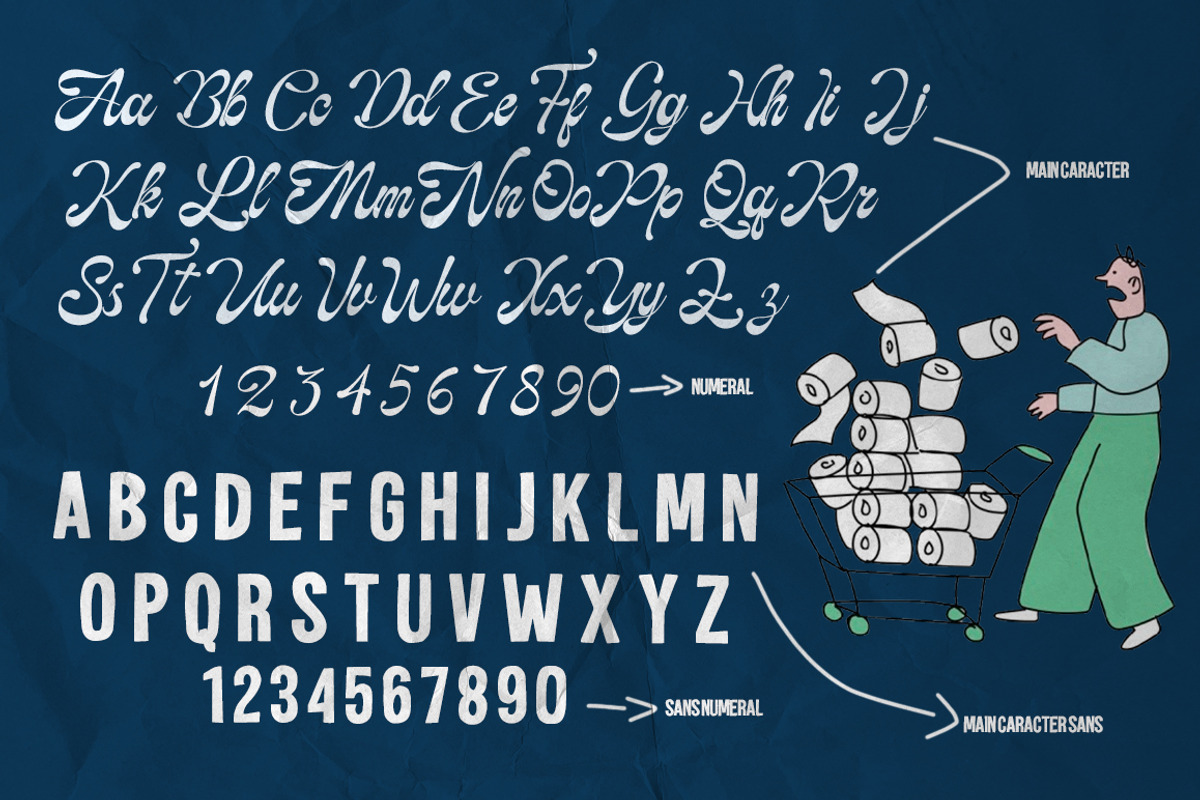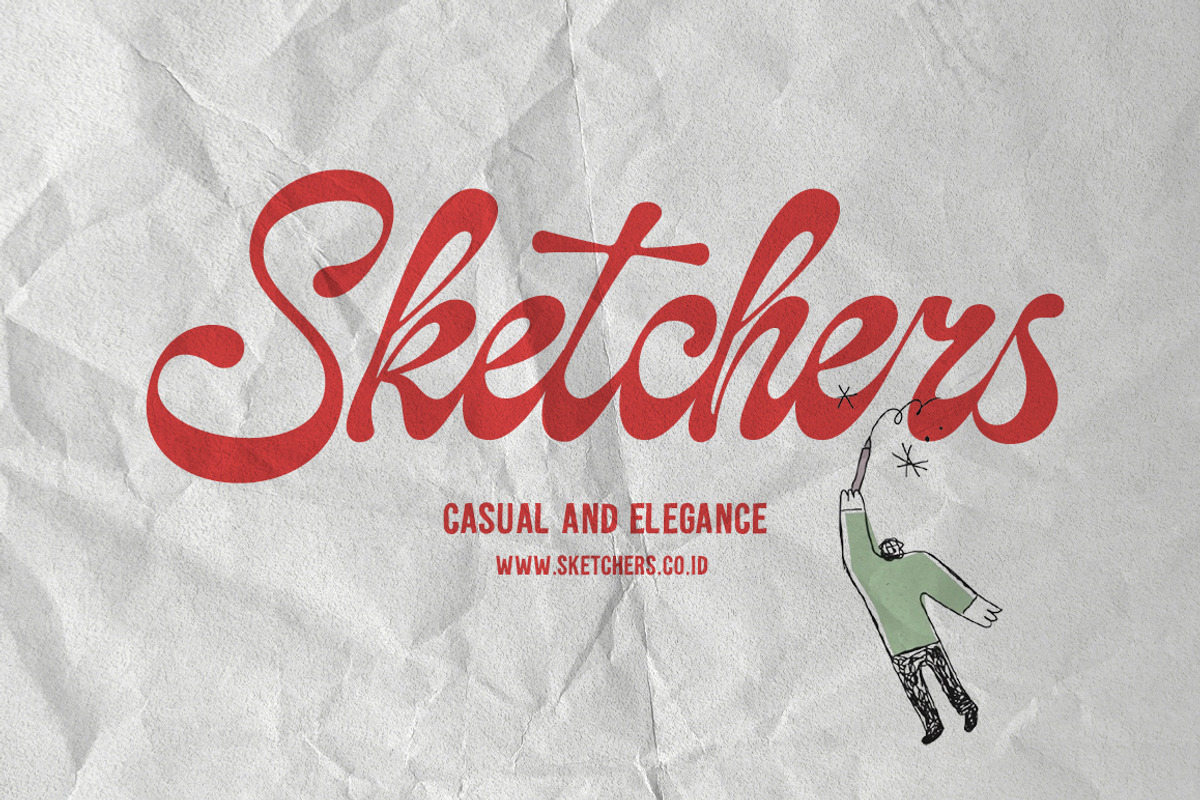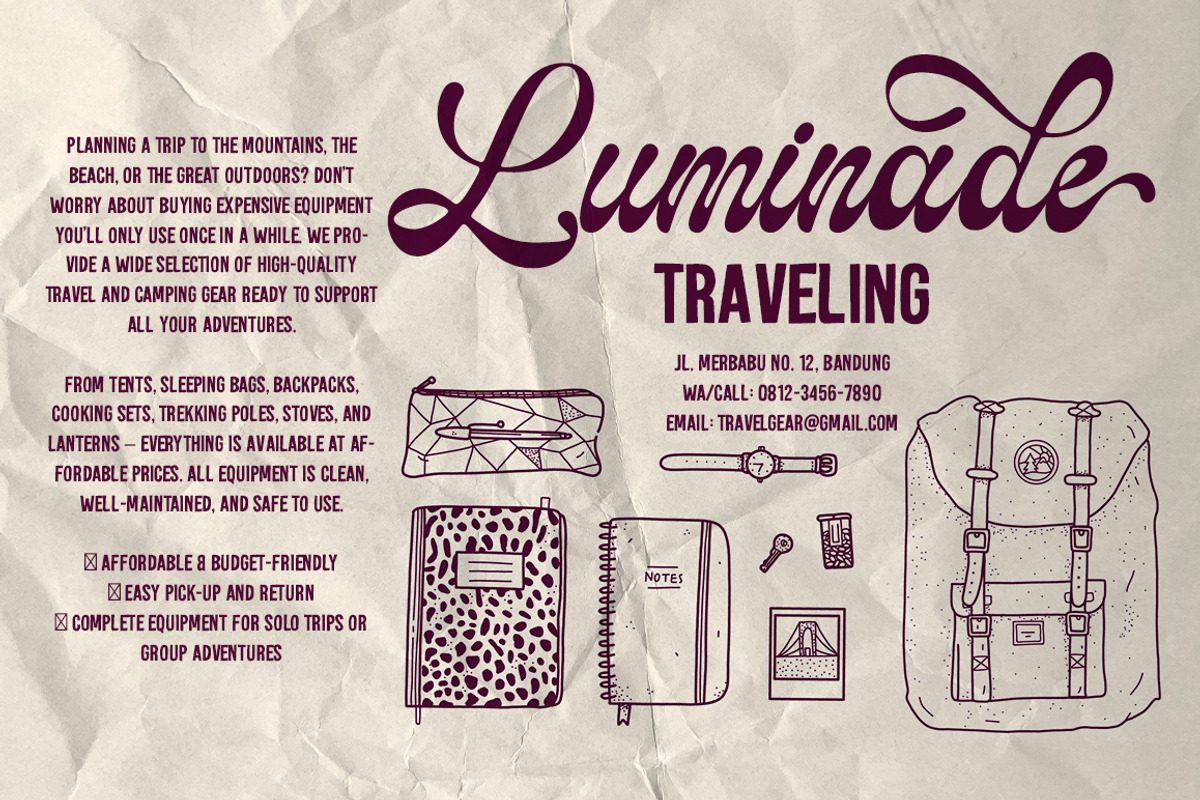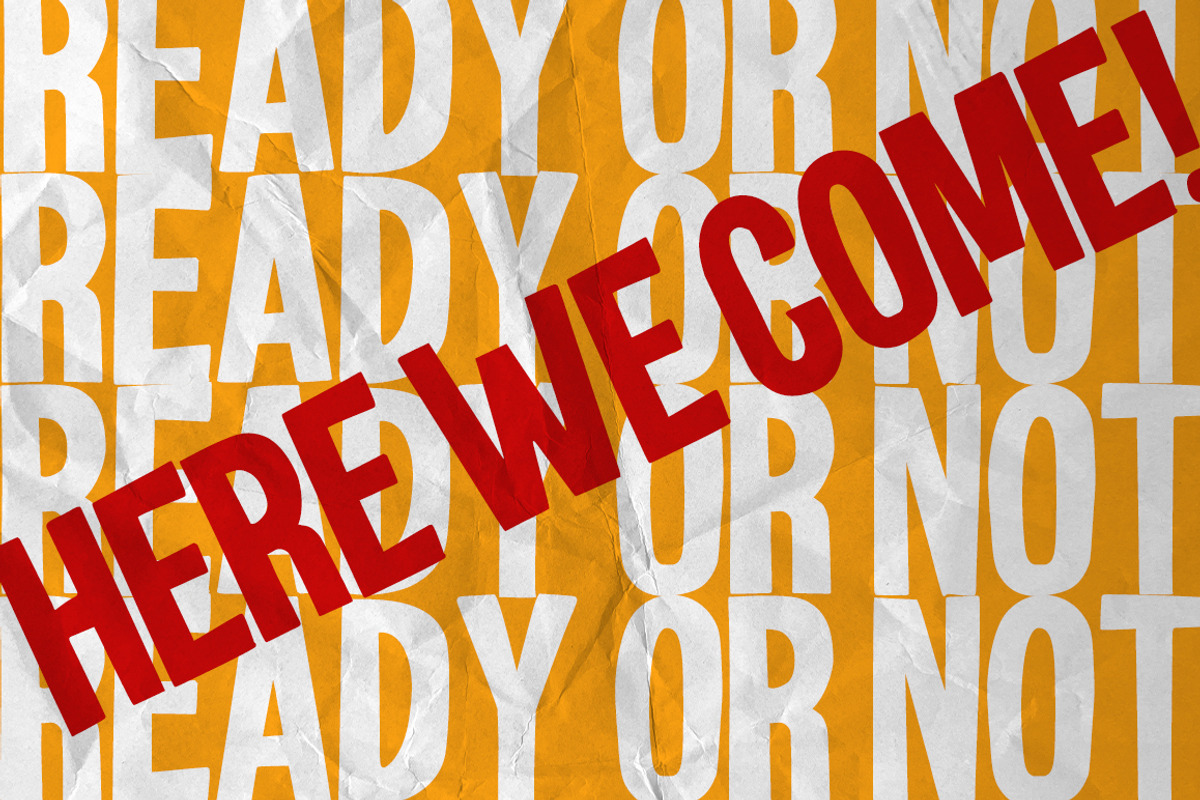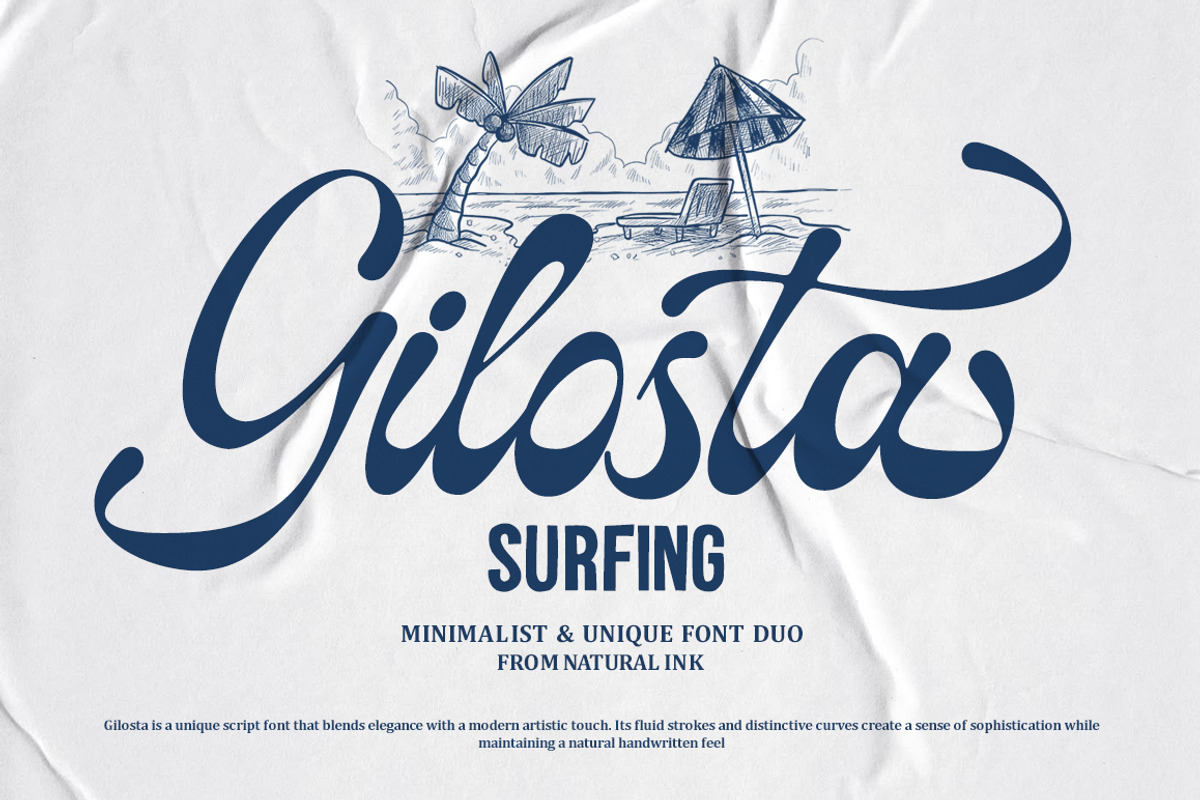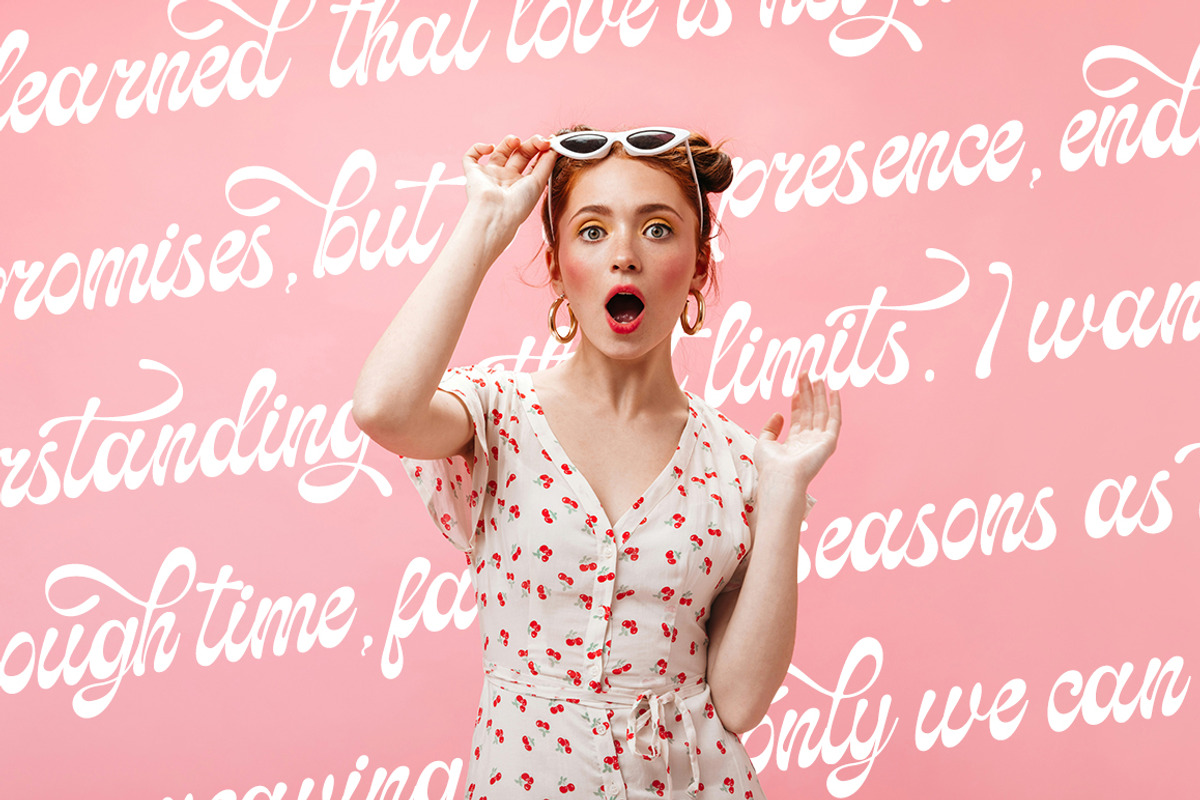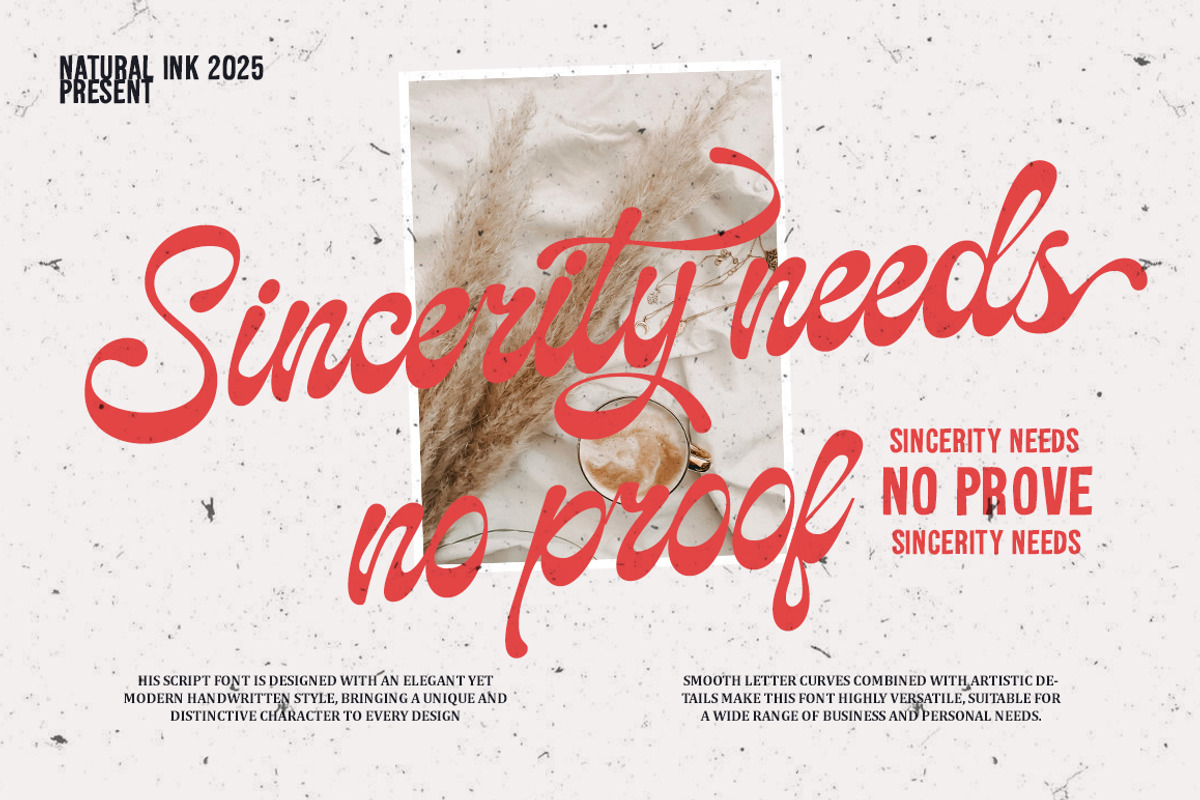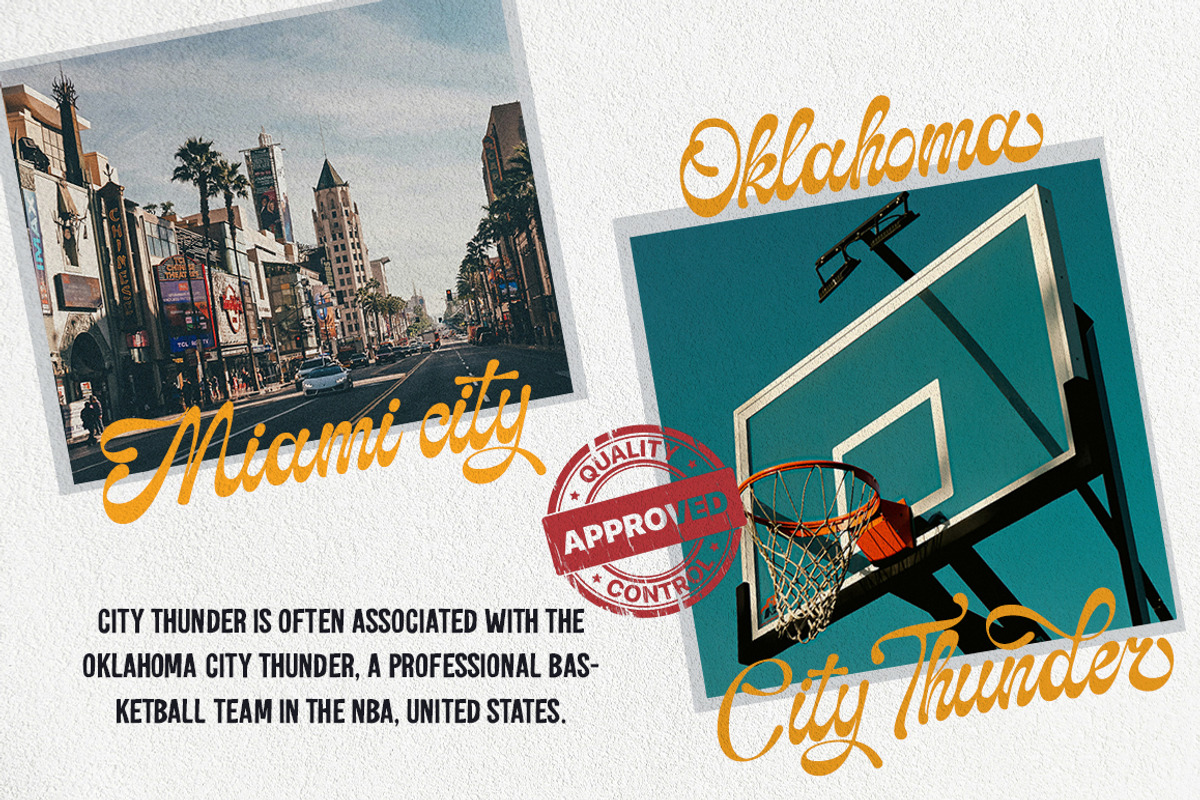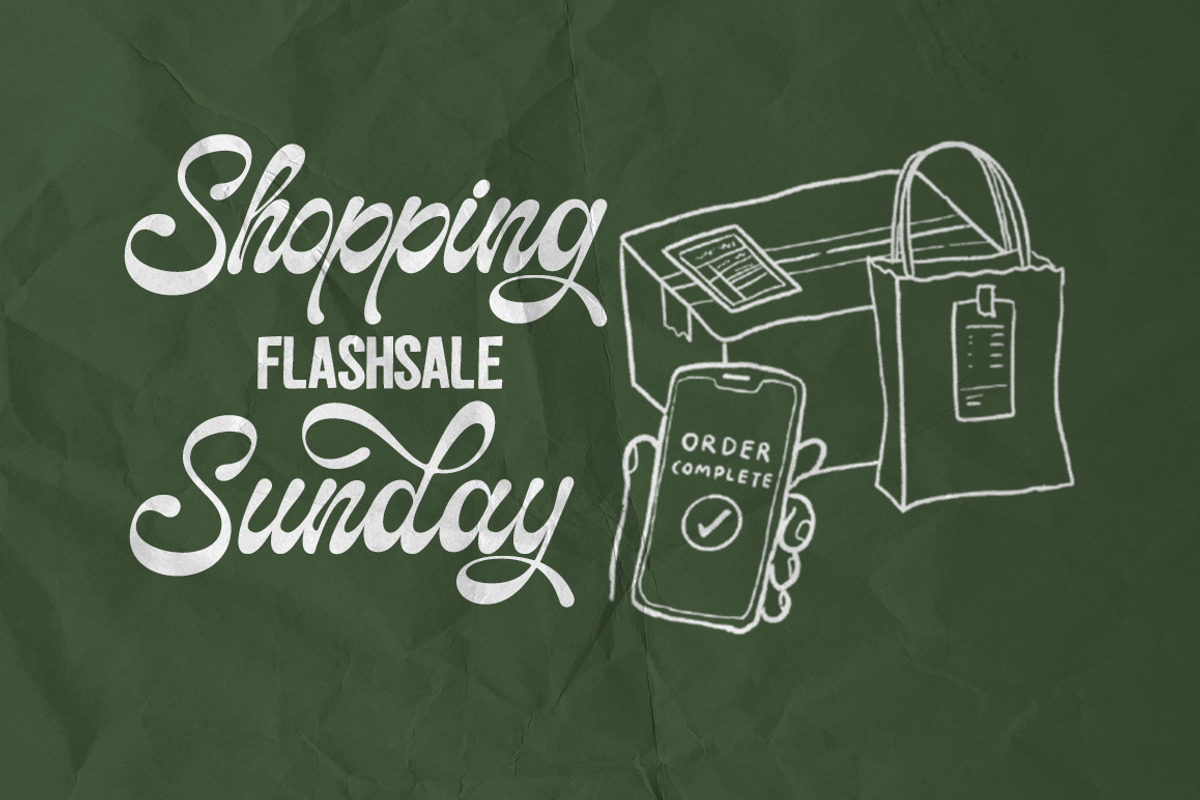
Gilosta Surfing | With Sans
Introducing Gilosta Surfing, a unique hand-crafted script font designed to bring elegance, warmth, and a personal touch to every creative project. With flowing strokes, natural curves, and refined details, this font is perfect for logos, invitations, branding, social media, and editorial designs. Its blend of modern and classic aesthetics makes it versatile for a wide range of visual styles.
As a special bonus, this package also includes a handwritten sans font. This sans font pairs seamlessly with the script, providing balance and beautiful contrast with its casual yet neat strokes. Together, they create a harmonious typography combination—ideal for bold headlines, heartfelt quotes, or cohesive branding identities.
With these two complementary fonts, you’ll have endless creative freedom to craft designs that are both elegant and personal. A perfect choice for designers, entrepreneurs, and creatives who want to add a professional yet warm touch to their work.